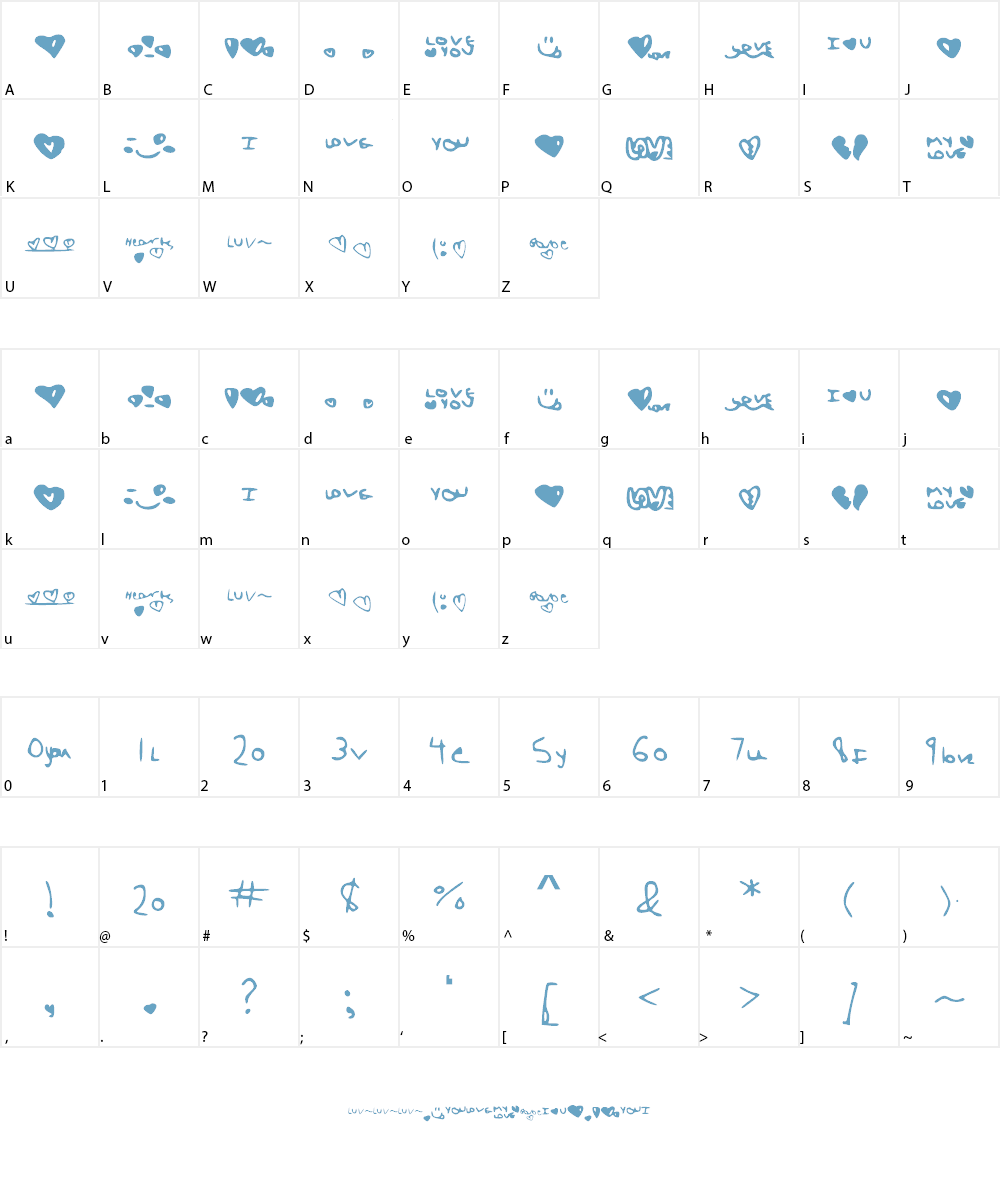
Heey. This is my second font. And I hope you LOVE it. (: So it's called Love Shock. They are like heart symbols. If you do MNO it would spell I love you (: Find out some more when you use it! Heehe. Hope you like it. Or Love it. (: